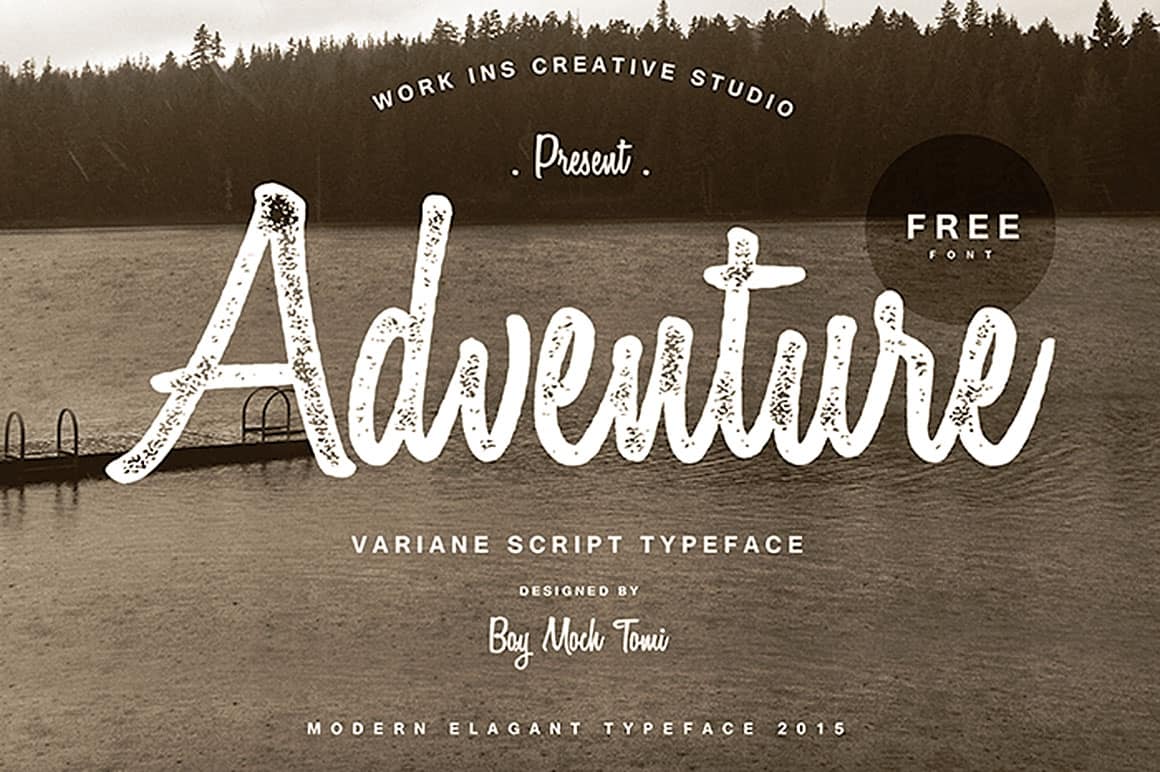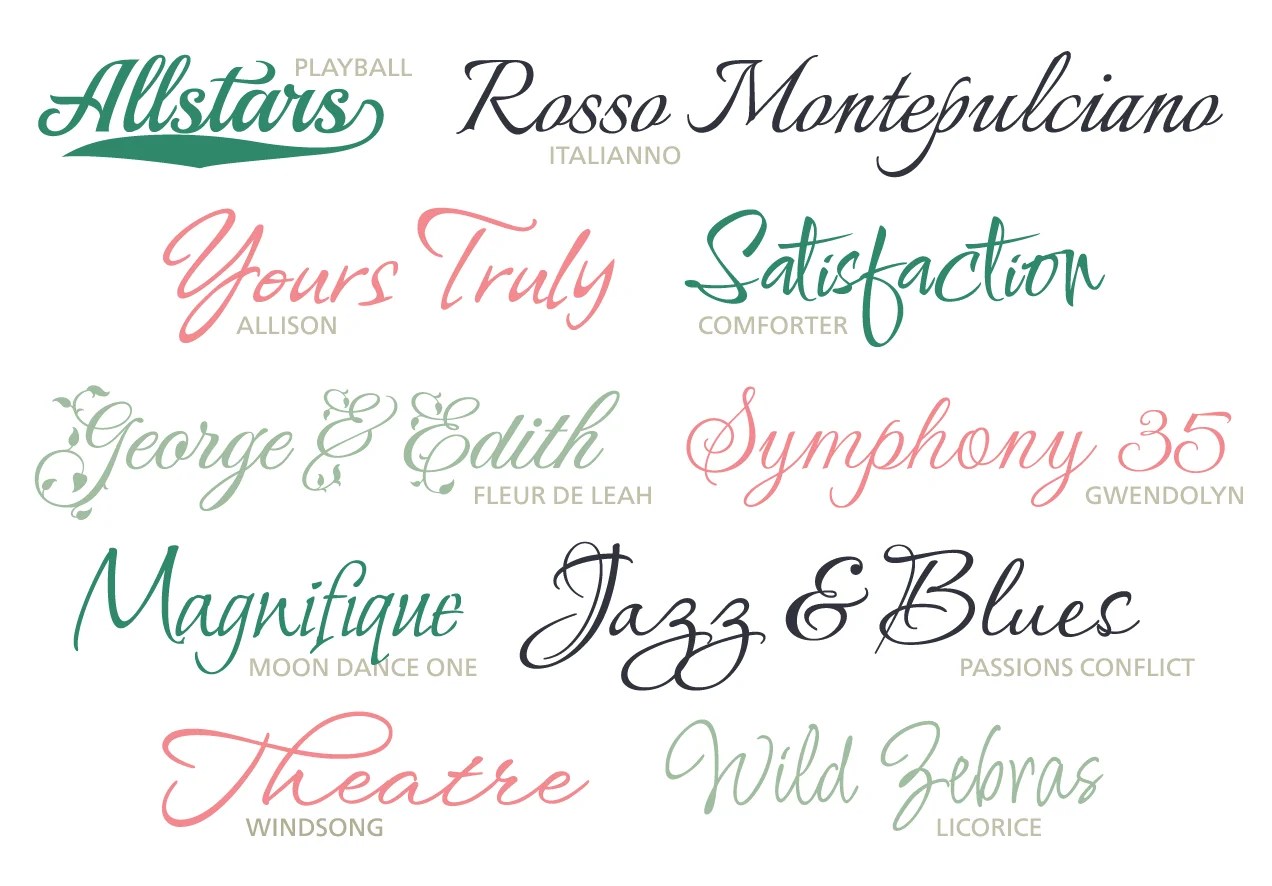
New Cursive Fonts
New Cursive Fonts. Usually, new american cursive is made for the students who just started their journey of learning cursive. There is no app (at least in our knowledge) with an inbuilt text formatting option to change the fonts to look like cursive fonts.
Variane Script Font
Note that the search term “cursive” isn’t going to return many results, so use something like “script” or “handwriting” instead. Explore 6,999 stunning cursive fonts to download and find the perfect match that fits your next web and print design projects of all sizes. Calligraphy is also one of the most ancient styles of writing which now.
The Cursive Fonts Are The Best Options For Creative Projects, Logo Designs And Any Kind Of Writing That Needs An Attractive Feel.
Are You Looking For The Perfect Cursive Fonts?
Explore 6,999 stunning cursive fonts to download and find the perfect match that fits your next web and print design projects of all sizes. Letters may be joined or unjoined. This method of scriptwriting was first used by platt rogers spencer.
This cursive font gives that subtle brush style aesthetic that practically screams old school—definitely a great font to use if you’re looking for that playful script font. Calligraphy is also one of the most ancient styles of writing which now. It’s easy to use, helps you with creativity, and is very very accessible for everyone!